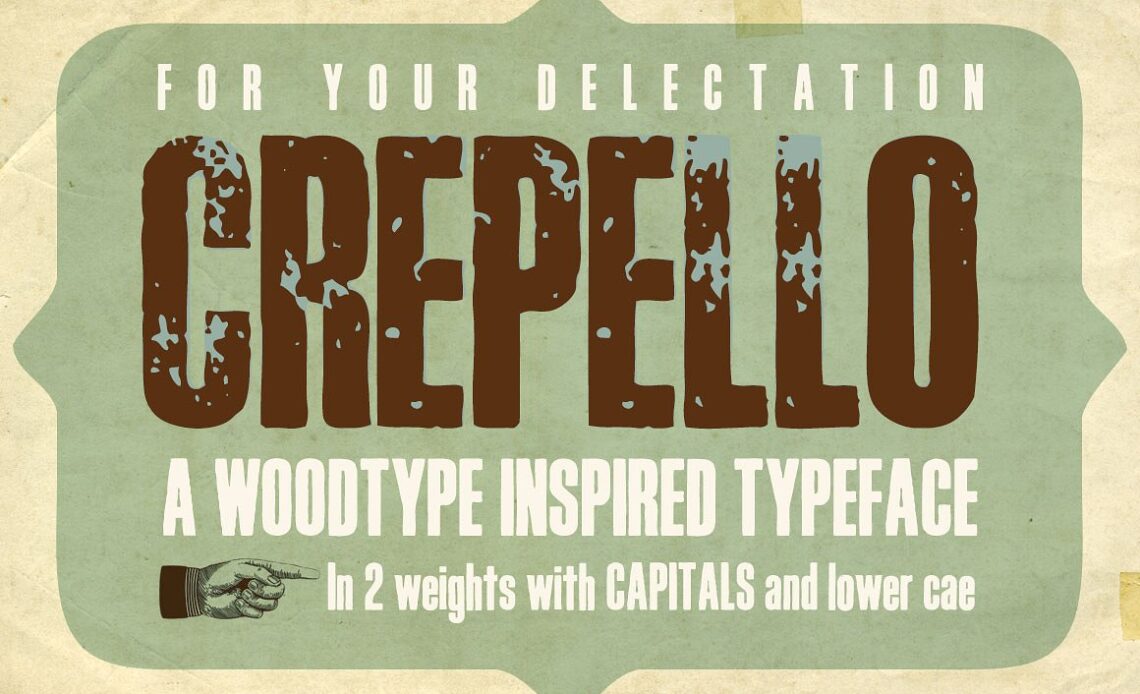
Welcome to the realm of Crepello Font, a striking display typeface that transports you back to the charm of vintage woodcuts. This font, crafted by the talented K22 Foundry, captures the essence of traditional craftsmanship with a modern twist.
Journey through history as you embrace the bold lines and unique character of Crepello. Inspired by timeworn woodblocks, this font exudes an aura of authenticity and heritage. Each letterform is meticulously designed to evoke the tactile sensation of hand-carved wood, creating a visual experience that is both captivating and timeless.
Unleash your creativity with the versatile Crepello Font. With its robust structure and unwavering presence, this font commands attention in headlines, posters, branding, and any design that demands a strong visual impact. Its distinctive style adds a touch of intrigue and sophistication to your projects, setting them apart from the ordinary.
Dive into the depths of Crepello's character set and discover a treasure trove of typographic possibilities. Uppercase and lowercase letters dance together harmoniously, while numerals and distressed versions add an extra layer of charm and authenticity. Experiment with different combinations and let your imagination run wild as you craft designs that resonate with your audience.
Step into a world where tradition meets modernity with Crepello Font. Its bold presence and vintage charm will elevate your designs, leaving an indelible mark on your audience. Whether you're a seasoned designer or just starting your creative journey, Crepello is the perfect choice for those seeking fonts that speak louder than words.
Embrace the artistry and heritage of Crepello Font. Its bold, sans serif design will capture hearts and minds, leaving a lasting impression on all who encounter it. Unlock the potential of your creativity and let Crepello Font guide you towards design excellence.